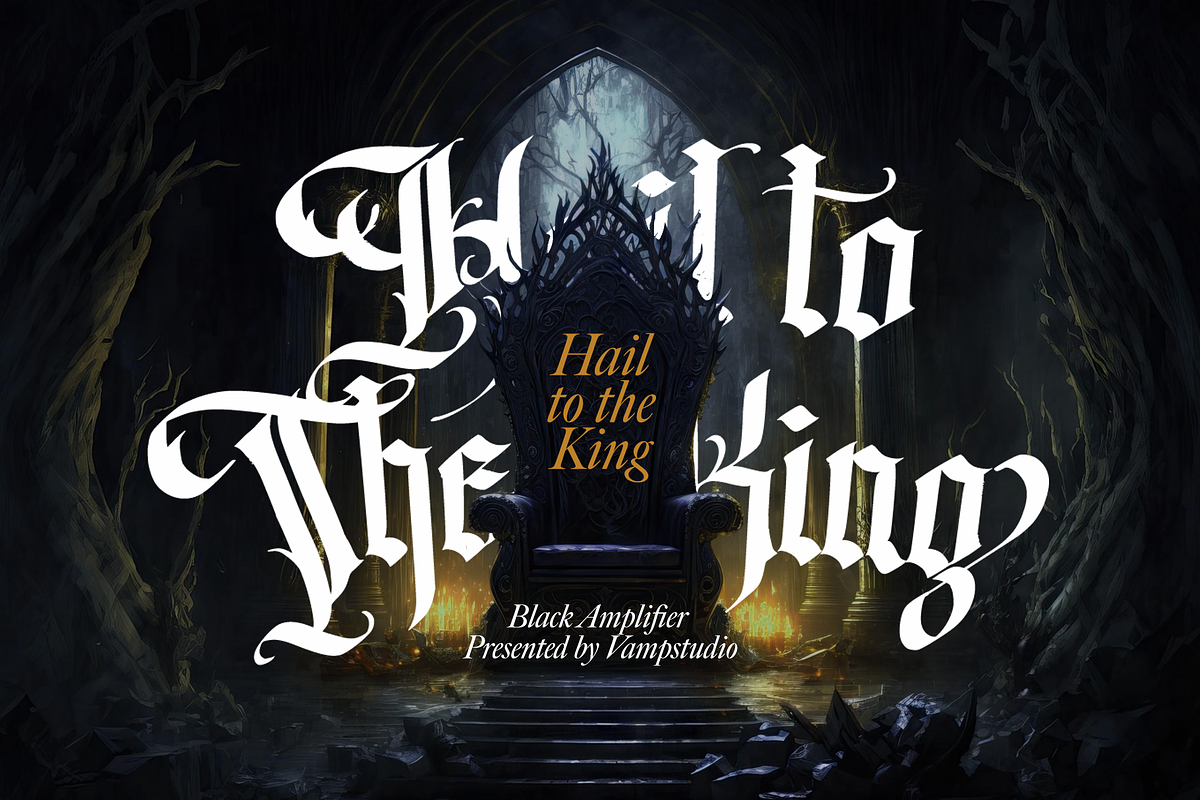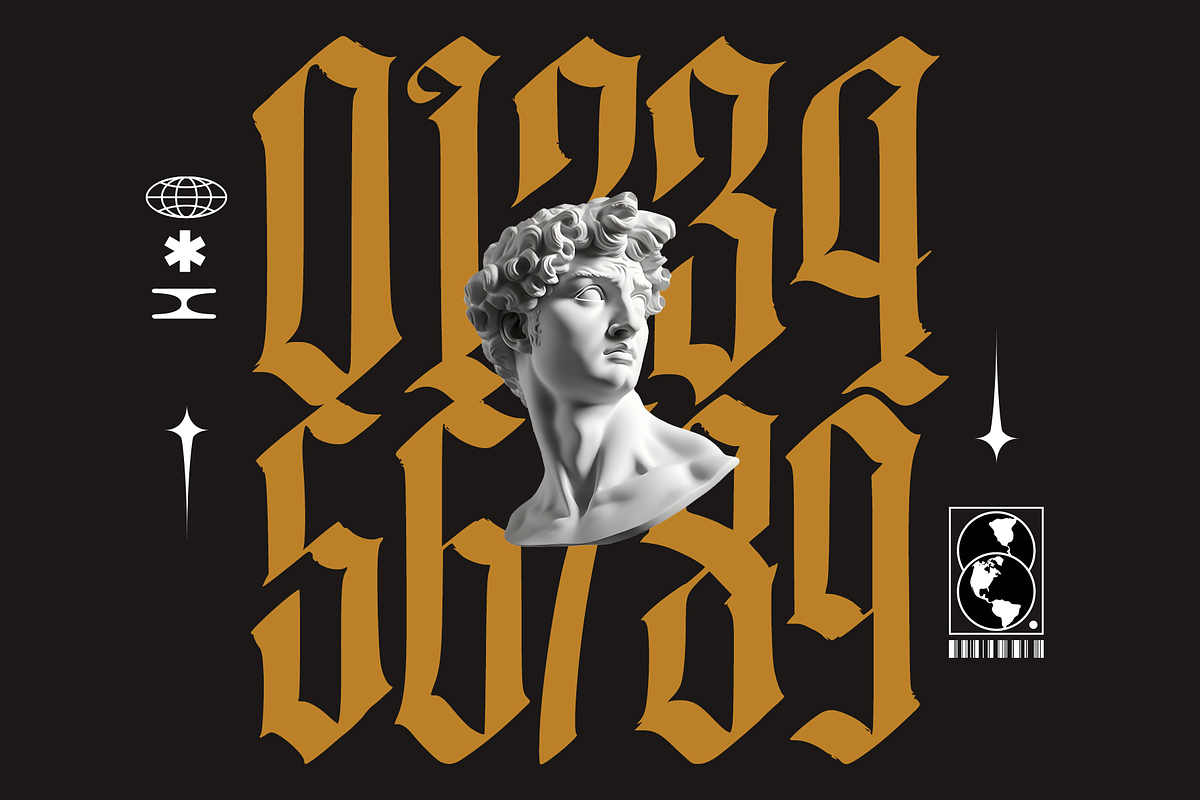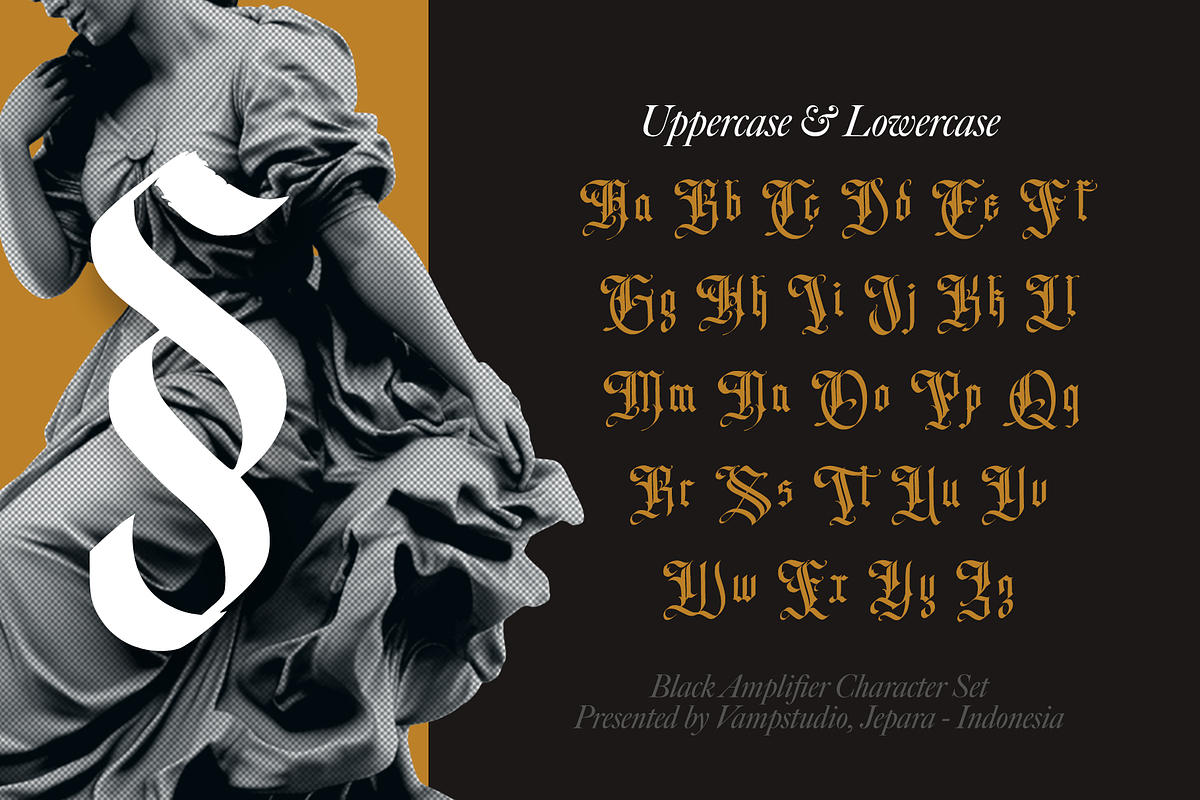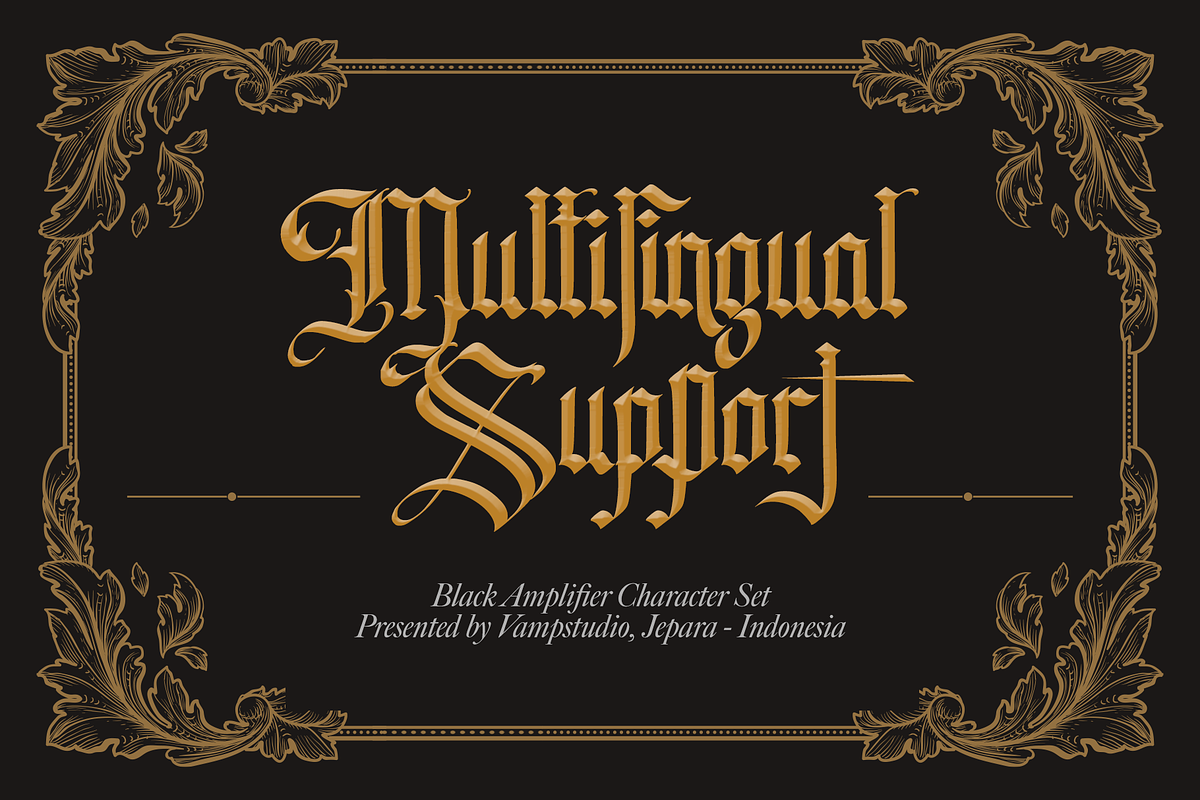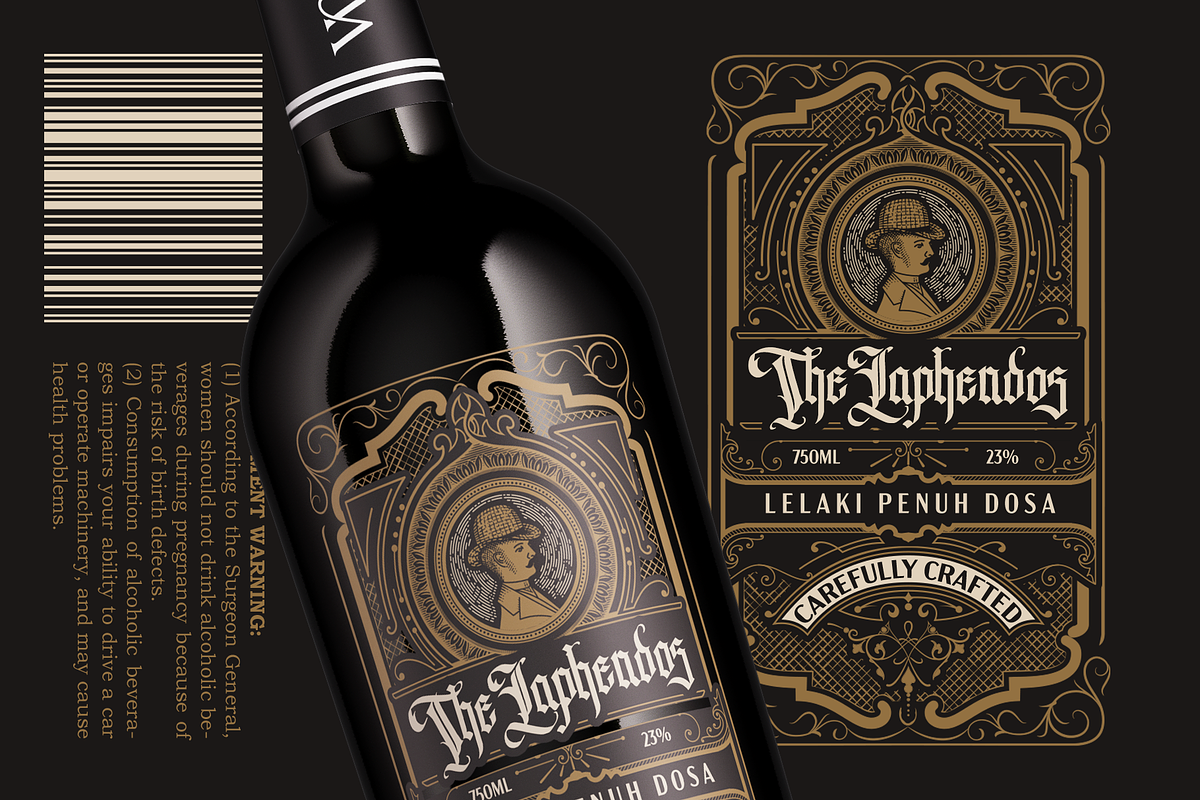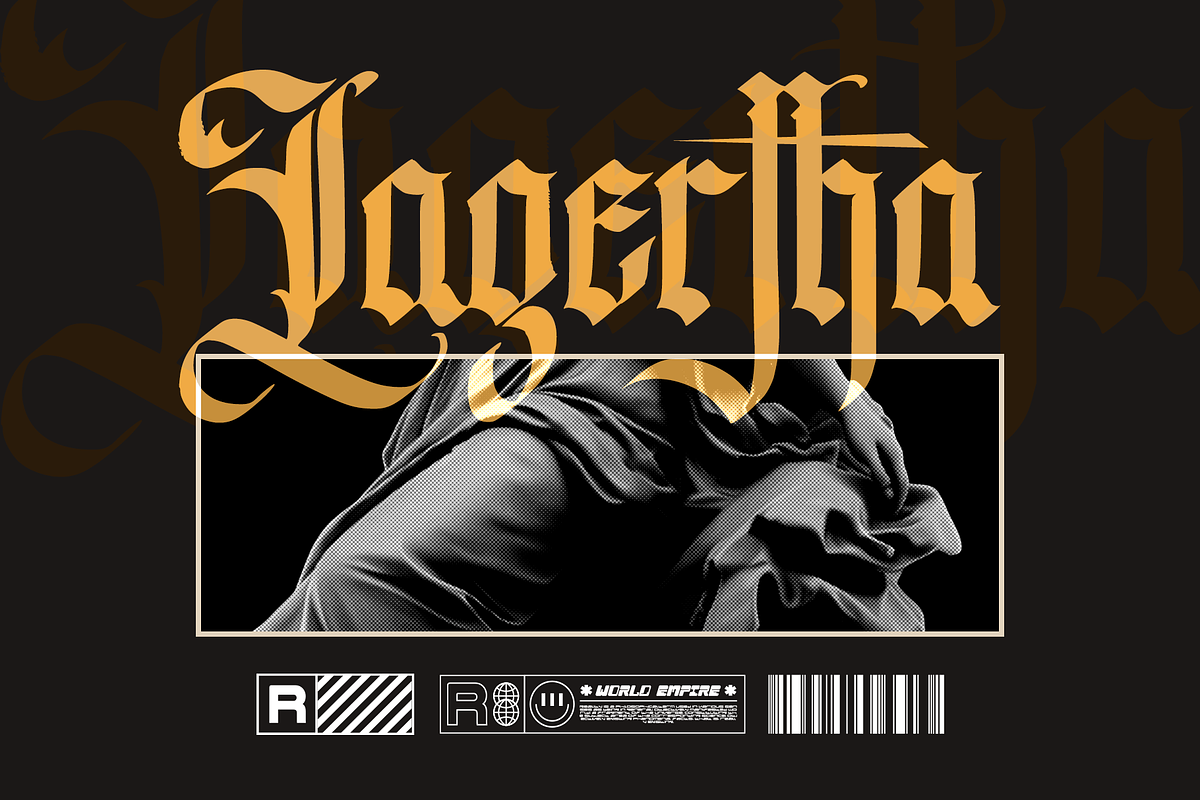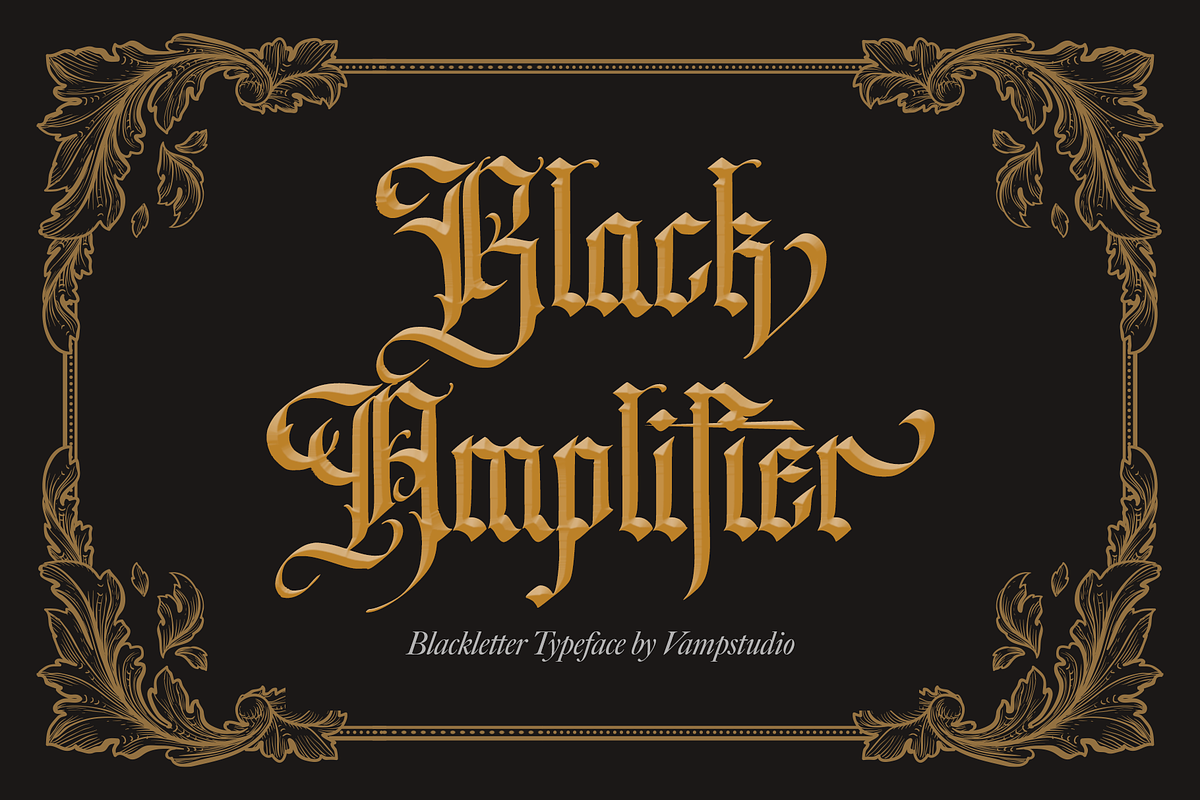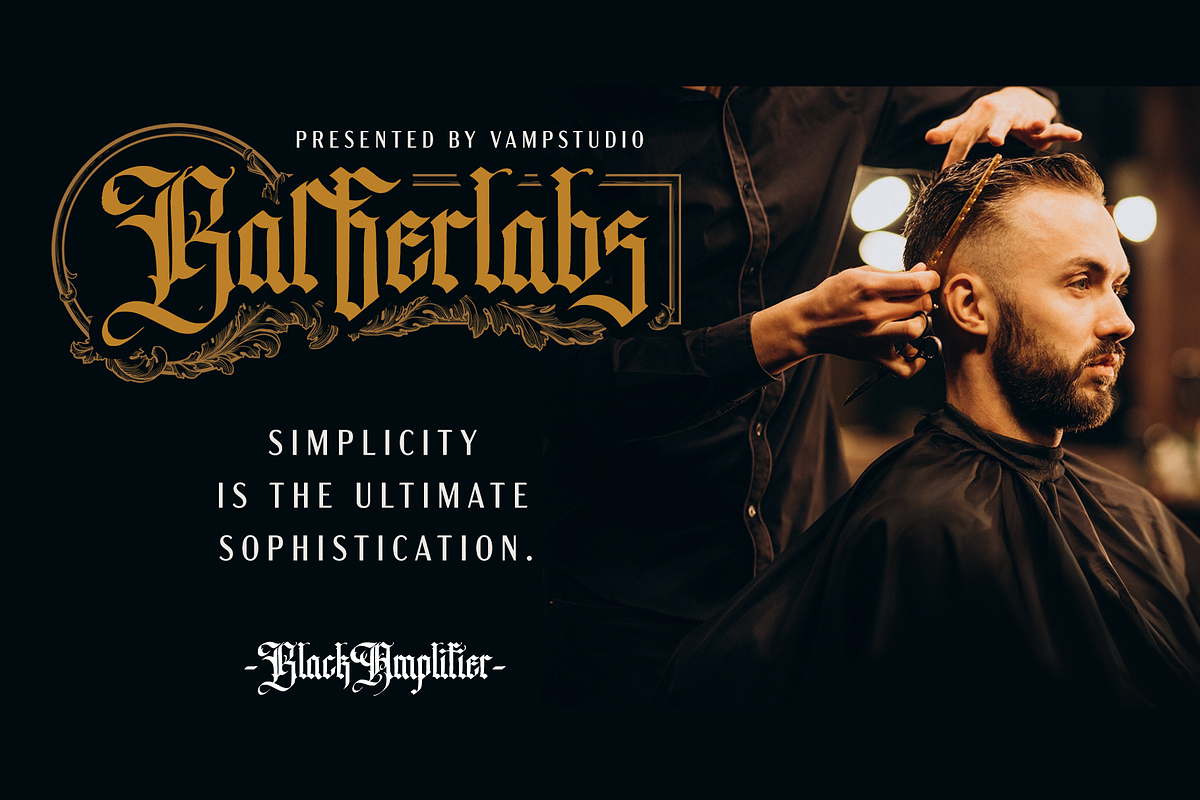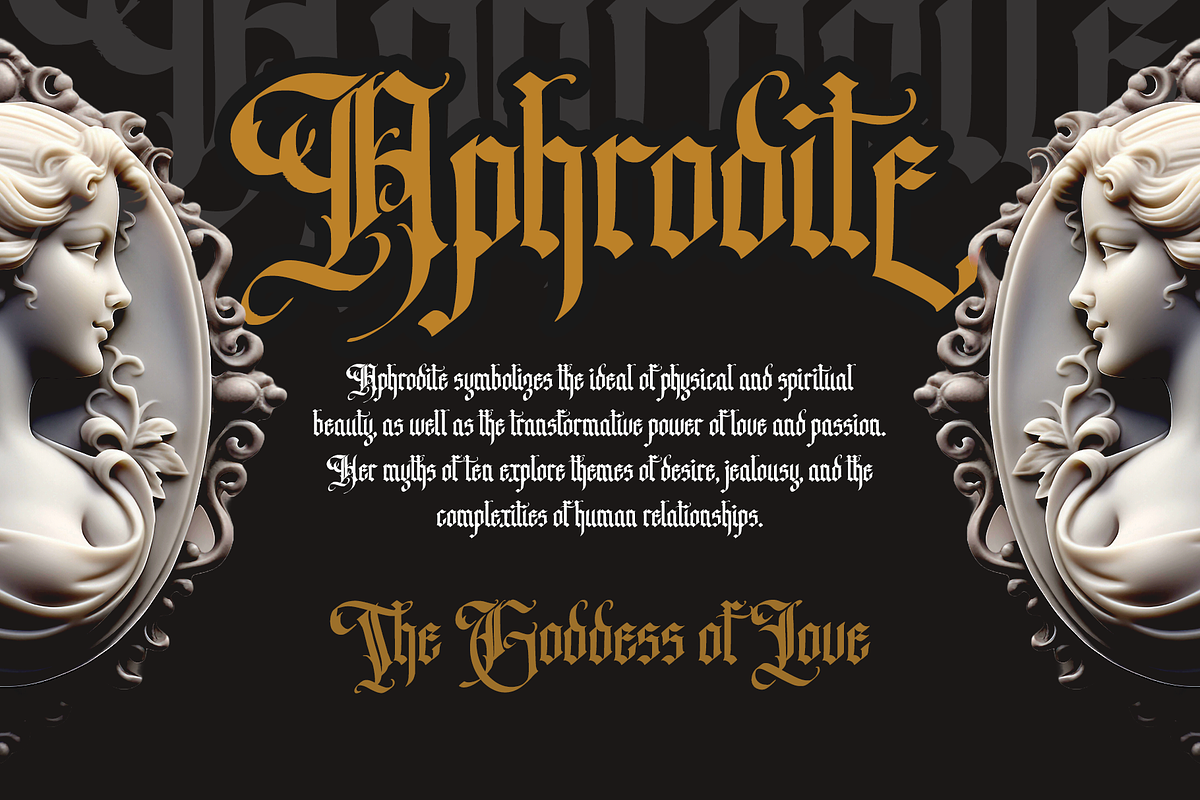
Black Amplifier Blackletter Font
Black Amplifier is a modern elegant Blackletter font. This font looks very simple, clean, and elegant. Specially designed by skilled hands makes this font is the perfect fit for all your big projects.
Black Amplifier is perfect for branding projects, logo, wedding designs, social media posts, advertisements, product packaging, product designs, label, photography, watermark, invitation, stationery and any projects that need vintage and stylish taste.
- Fonts include multilingual support.